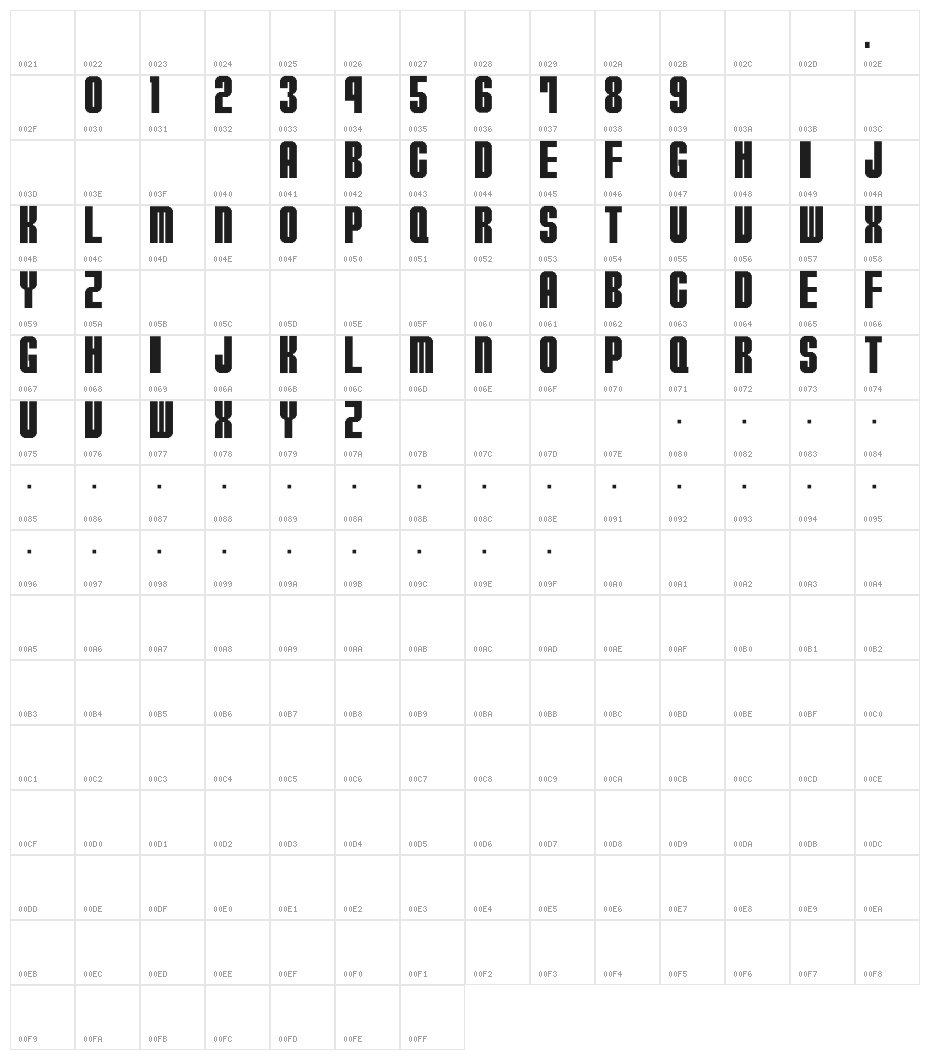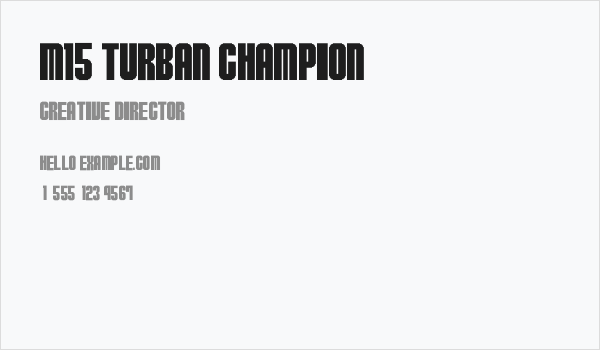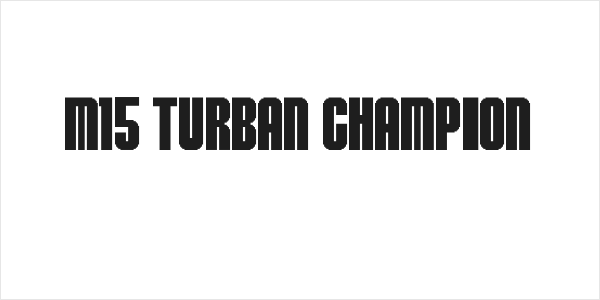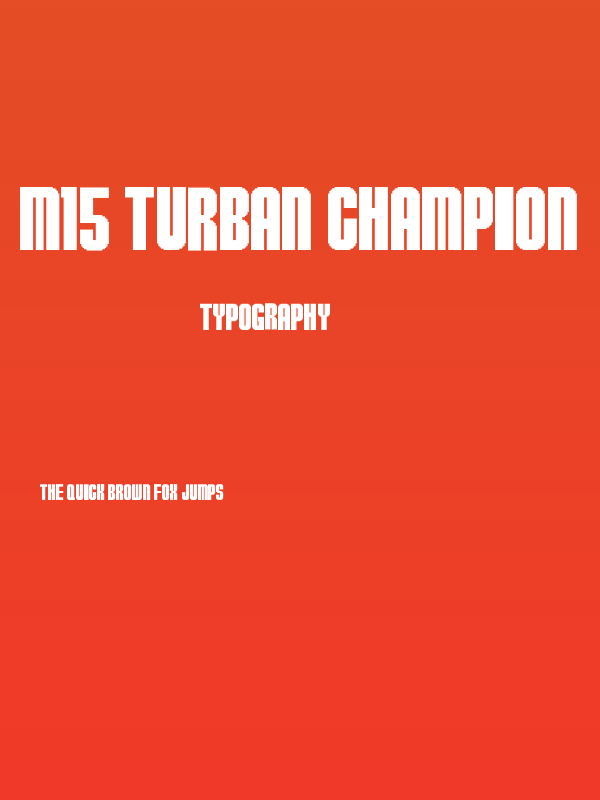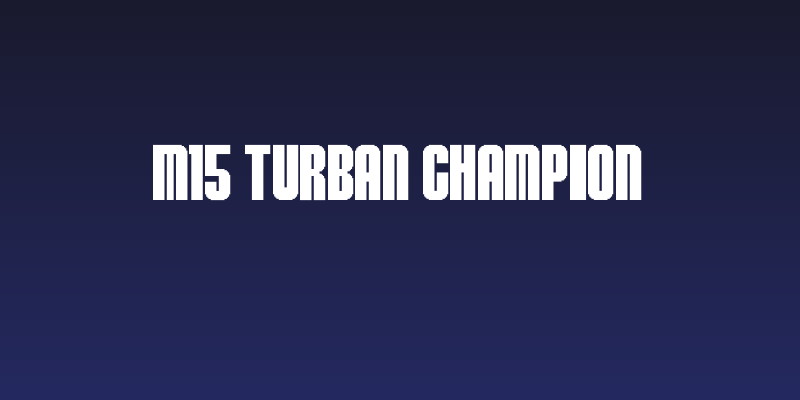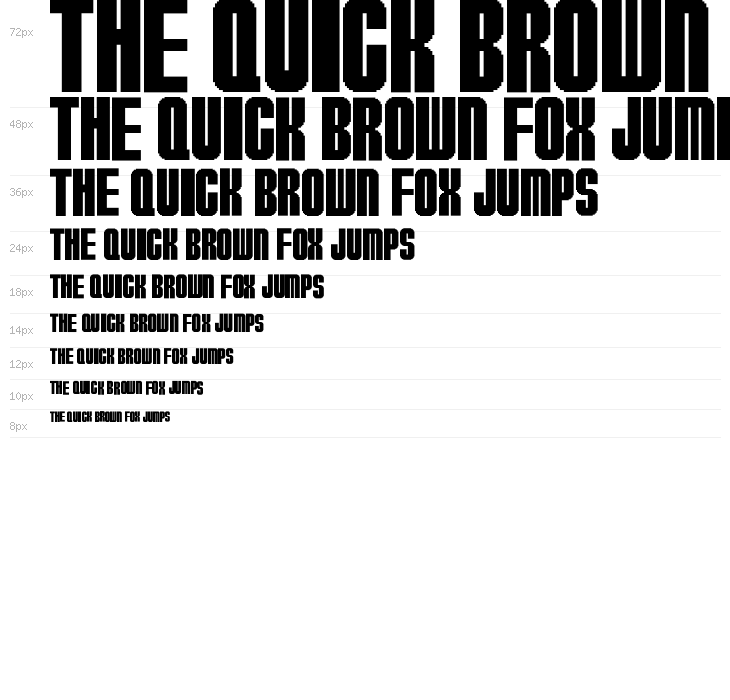
M15_TURBAN CHAMPION Font
M15_TURBAN CHAMPION Description
This font features a bold and impactful design with a strong geometric structure. The characters are uniformly wide, creating a sense of stability and strength. The uppercase letters have a blocky appearance with sharp angles and straight lines, giving them a modern and industrial feel. The numbers follow the same design principles, ensuring consistency across all characters. This font's boldness makes it stand out, making it ideal for attention-grabbing headlines or titles. Its lack of serifs and minimal contrast between thick and thin strokes contribute to its clean and straightforward aesthetic.